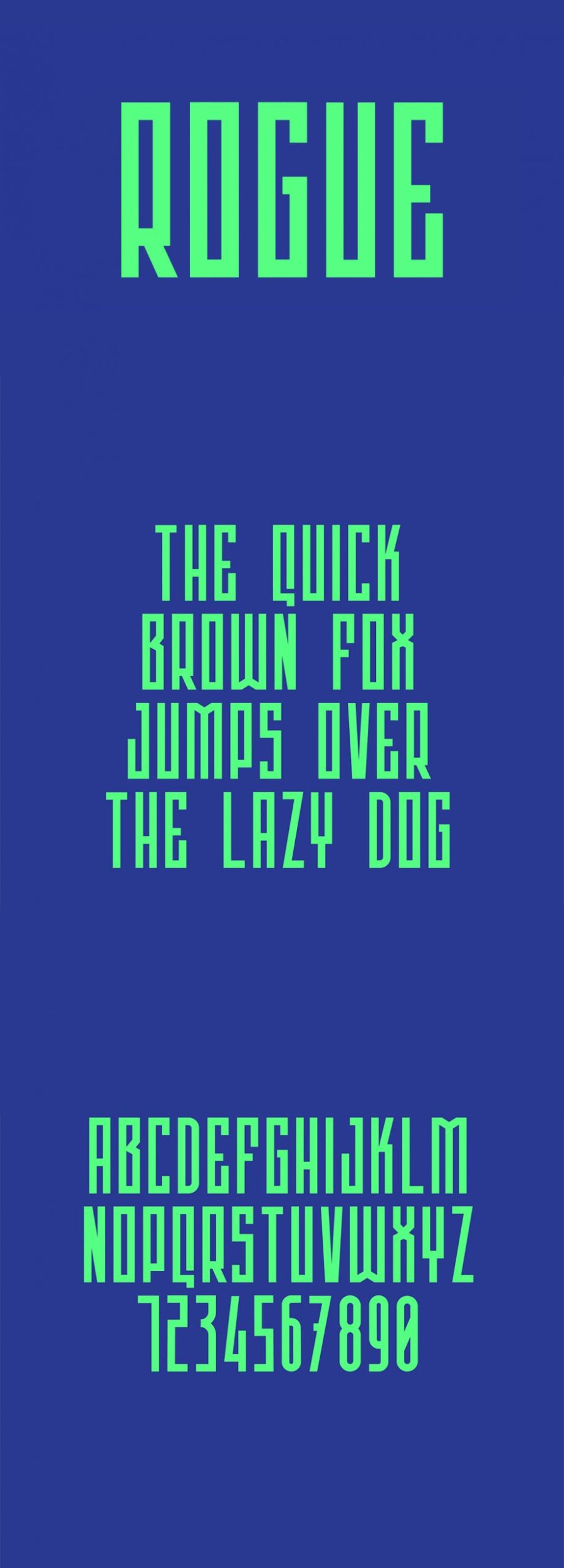
Rogue Display Free Typeface is the latest work coming from Andreas Leonid. Its sharp and clean look makes this display font is ideal for posters and titles. Hence, it will work great for sports ads and Instagram or social media ads, logo, branding and a lot more. In addition, it is free for both personal and commercial use!
Rogue Display Free Typeface
Rogue Display Free Typeface is the latest work coming from Andreas Leonid. Its sharp and clean look makes this display font is ideal for posters and titles. Hence, it will work great for sports ads and Instagram or social media ads, logo, branding and a lot more. In addition, it is free for both personal and commercial use!